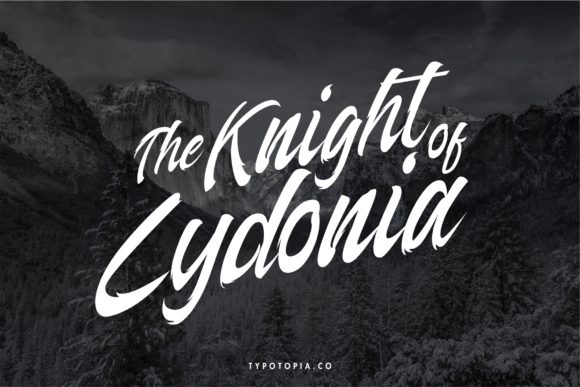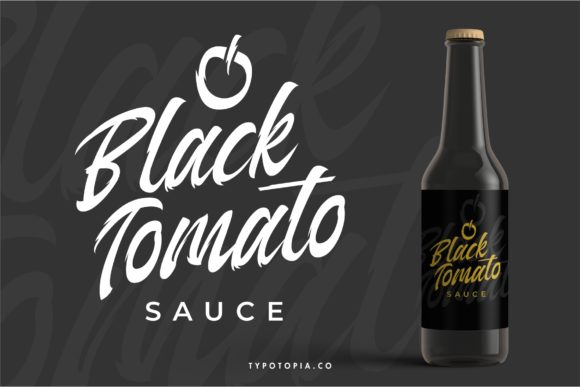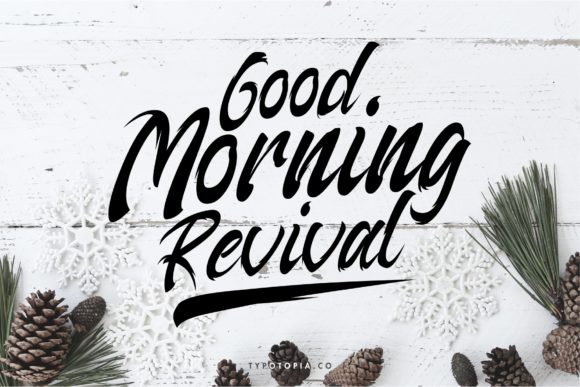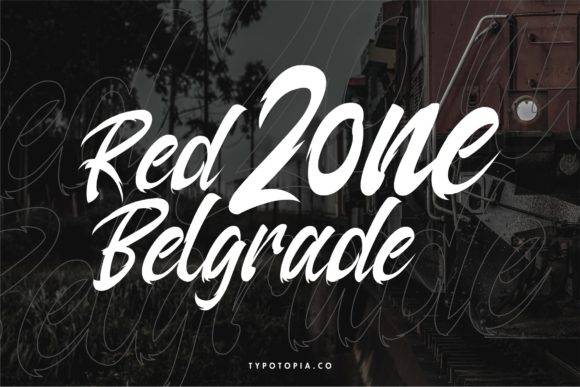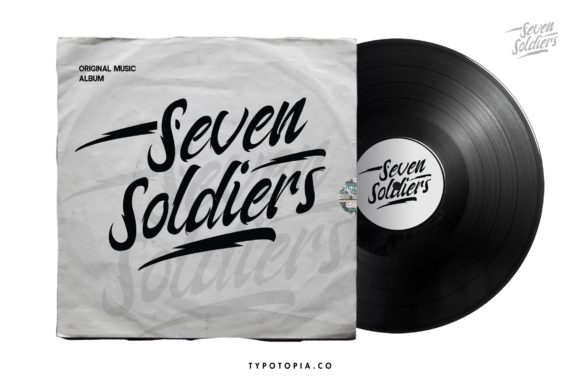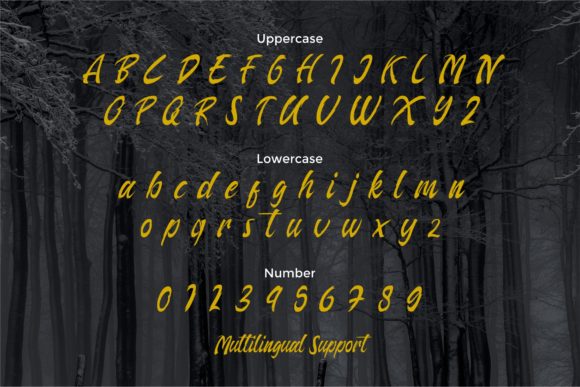
Introducing Arthas Font: The Elegant and Timeless Choice for Your Design Projects
Are you a designer or crafter looking for a font that exudes elegance and sophistication? Look no further than Arthas Font, a beautiful flowing handwritten font that is sure to capture your heart. With its incredibly distinct and timeless style, Arthas Font is the perfect choice for adding a touch of refinement to your favorite projects.
What is Arthas Font?
Arthas Font is a carefully crafted handwritten font that boasts an elegant touch, making it ideal for designs that require a high level of sophistication. Its flowing lines and curves create a sense of movement and fluidity, adding a dynamic element to your designs. Whether you’re working on a logo, branding materials, or digital products, Arthas Font is sure to make a lasting impression.
Key Features of Arthas Font
- Unique and Distinctive Style: Arthas Font has a one-of-a-kind style that sets it apart from other fonts. Its elegant lines and curves create a beautiful, flowing effect that adds a touch of sophistication to any design.
- Timeless Appeal: Unlike trendy fonts that quickly go out of style, Arthas Font has a timeless quality that ensures it will remain relevant for years to come. Its classic elegance makes it a versatile choice for a wide range of design projects.
- Highly Versatile: Arthas Font can be used for a variety of design projects, from logos and branding materials to digital products and print materials. Its flexibility makes it a great addition to any designer’s font library.
- Easy to Read: Despite its elegant and flowing lines, Arthas Font is highly legible, making it perfect for body text and other applications where readability is essential.
How to Use Arthas Font in Your Design Projects
Arthas Font is incredibly easy to use and can be incorporated into your design projects in a variety of ways. Here are a few ideas to get you started:
- Logos and Branding Materials: Use Arthas Font to create stunning logos and branding materials that exude elegance and sophistication.
- Digital Products: Add a touch of refinement to your digital products, such as ebooks, courses, and software, with Arthas Font.
- Print Materials: Use Arthas Font to create beautiful print materials, such as brochures, flyers, and business cards.
- Web Design: Incorporate Arthas Font into your web design projects to add a touch of elegance and sophistication to your website.
Tips for Getting the Most Out of Arthas Font
To get the most out of Arthas Font, here are a few tips to keep in mind:
- Pair with Other Fonts: Arthas Font pairs beautifully with other fonts, so don’t be afraid to try pairing it with a bold font for headings or a clean font for body text.
- Use it Consistently: To create a cohesive look, use Arthas Font consistently throughout your design project.
Arthas Font is a beautiful and elegant handwritten font that is perfect for designers and crafters looking to add a touch of sophistication to their design projects. With its unique and distinctive style, timeless appeal, and high level of versatility, Arthas Font is sure to become a favorite in your font library. So why wait? Fall in love with Arthas Font and start creating spectacular designs today!